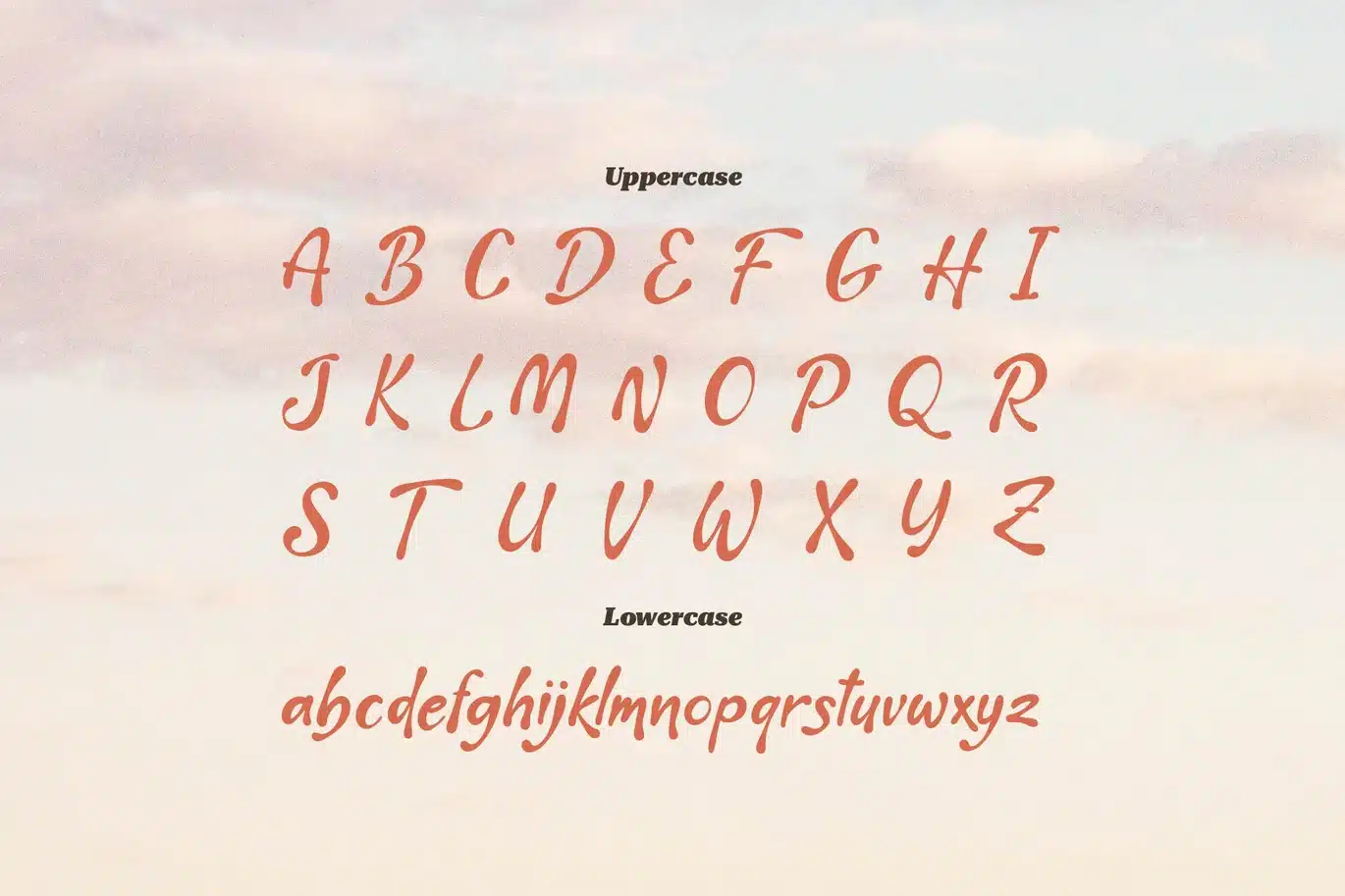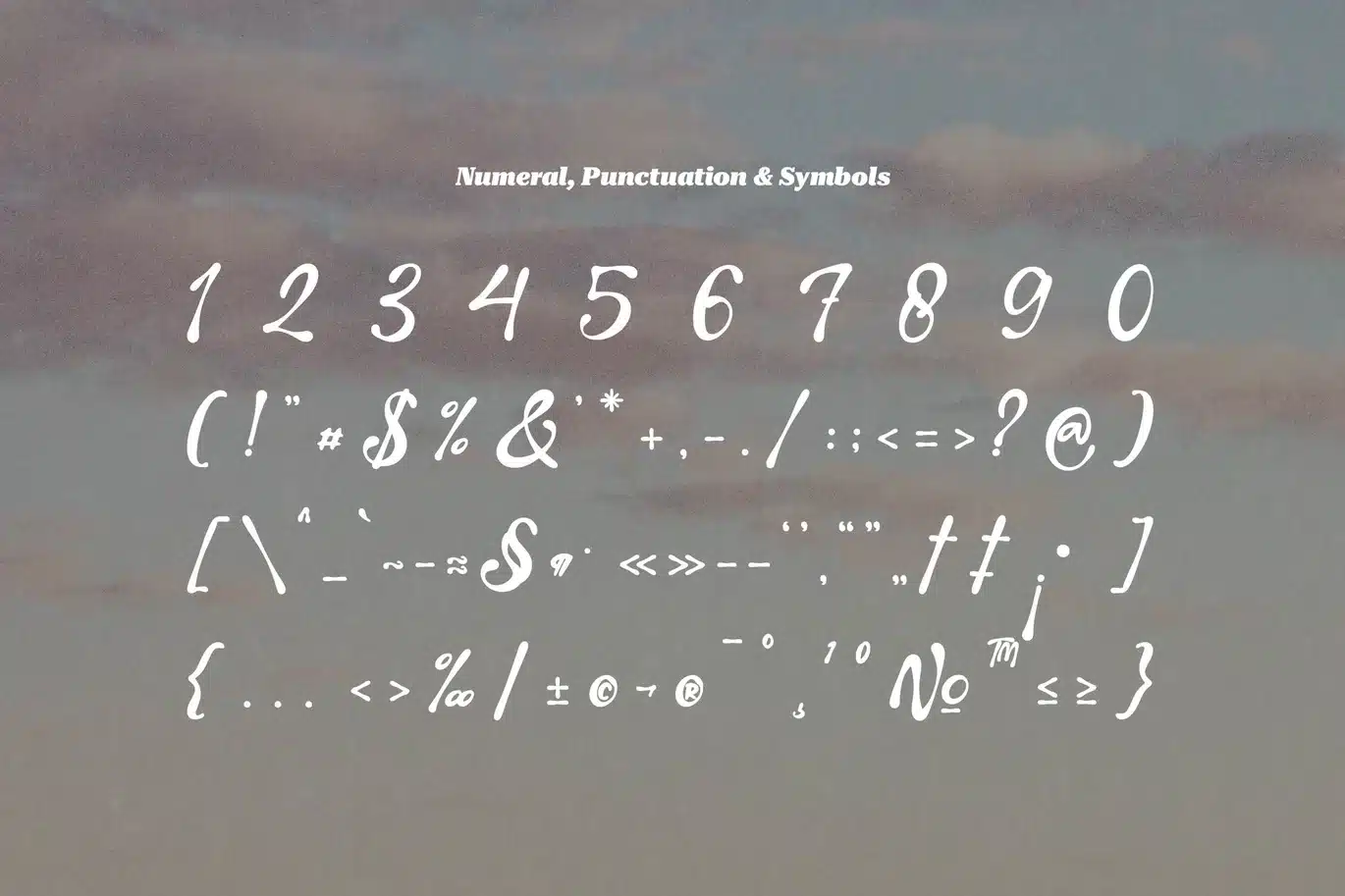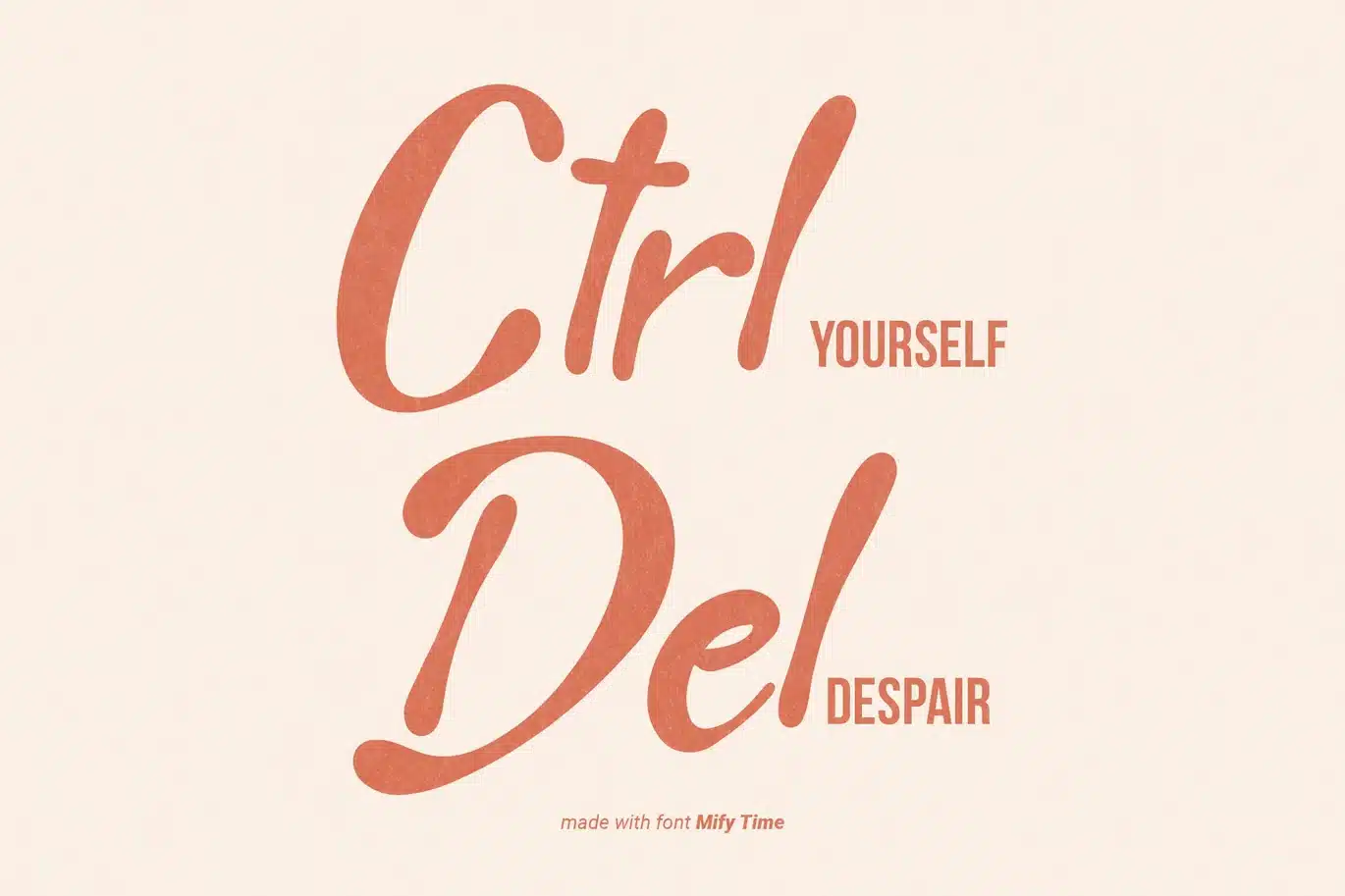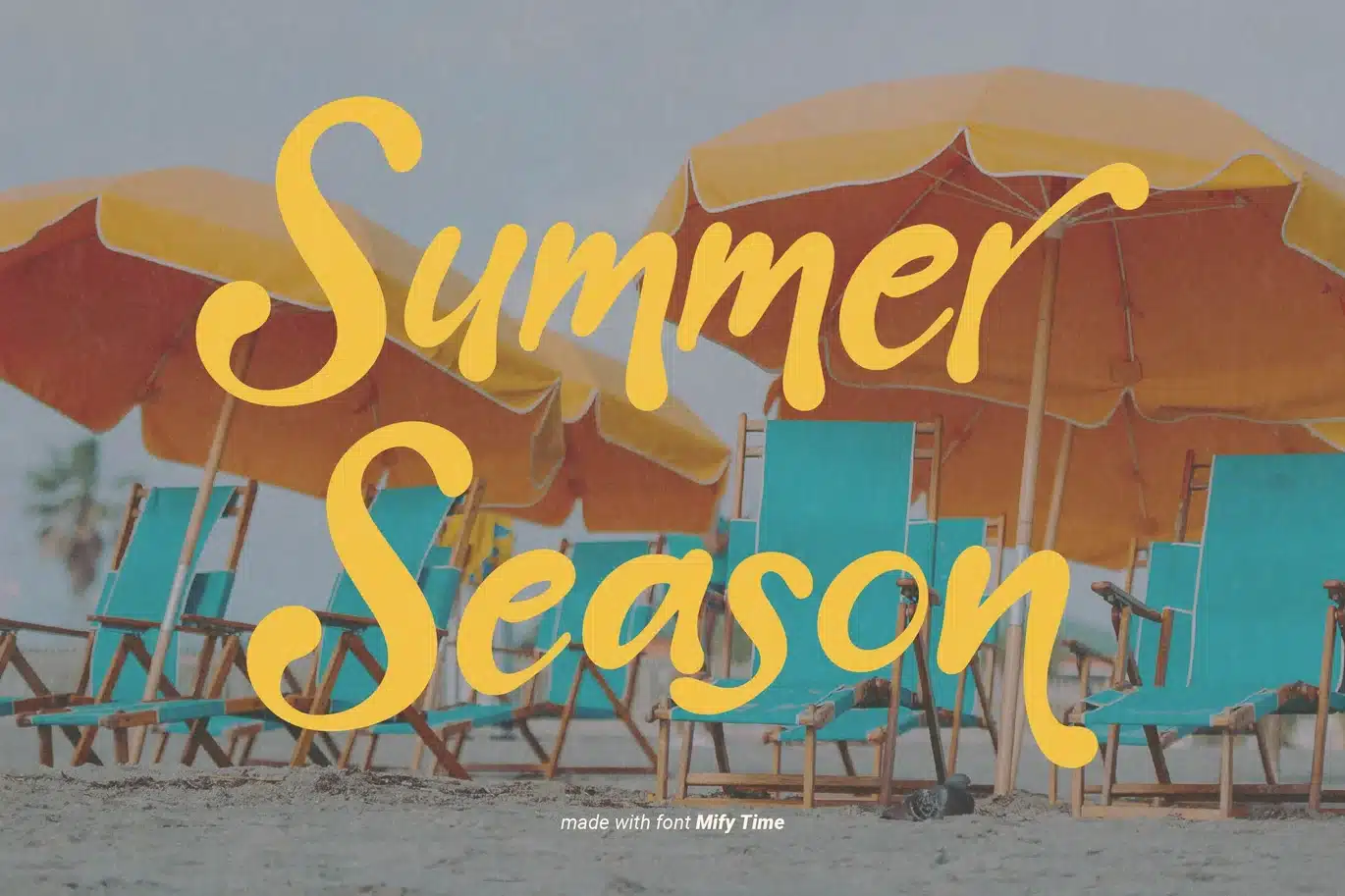
Mify Time | Handwritten Bubbly Font
Mify Time font is designed to deliver a strong and versatile visual character, balancing aesthetics and readability. Every detail is carefully crafted to ensure a clear, consistent, and visually appealing result across a wide range of design needs.
With well-structured letter proportions and support for features such as alternate characters and ligatures, this font allows for greater creative exploration. The final result is dynamic, distinctive, and professional, making it adaptable to various design styles.